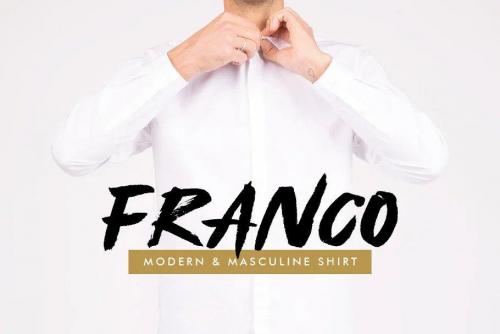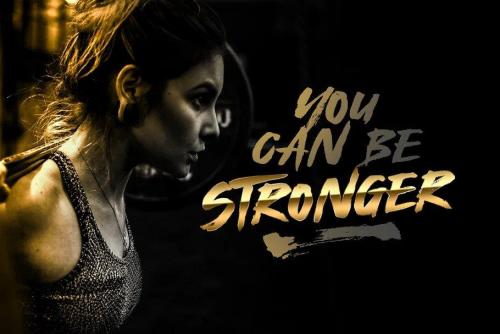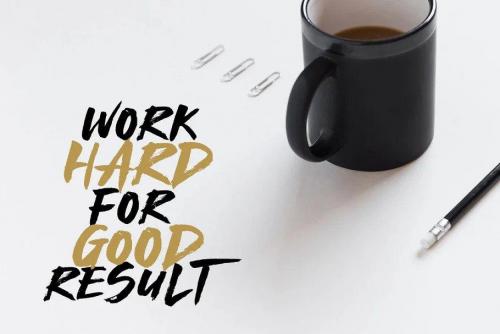
The Royal Fighter is a fresh handwritten font brush, elegant and vintage feel character set. The Royal Fighter font includes a full set capital and lowercase letters, as well as multi-lingual support, currency figures, numerals, & punctuation.
- Designer: khurasan